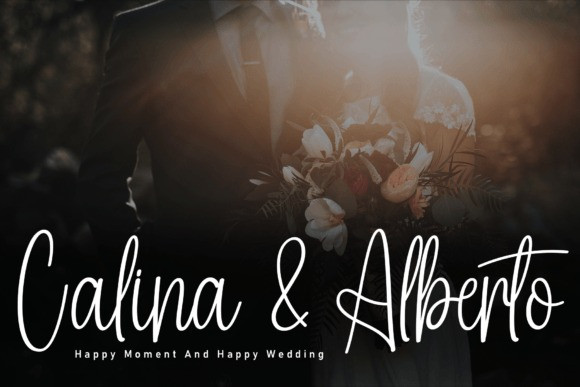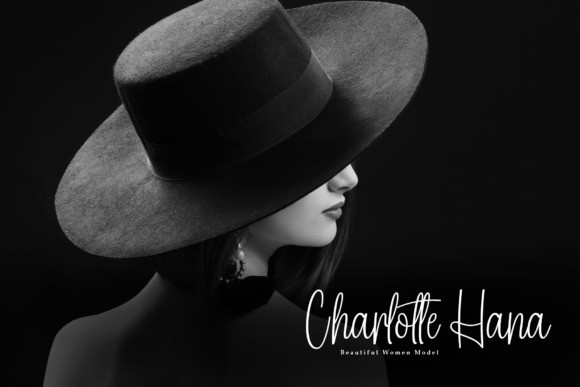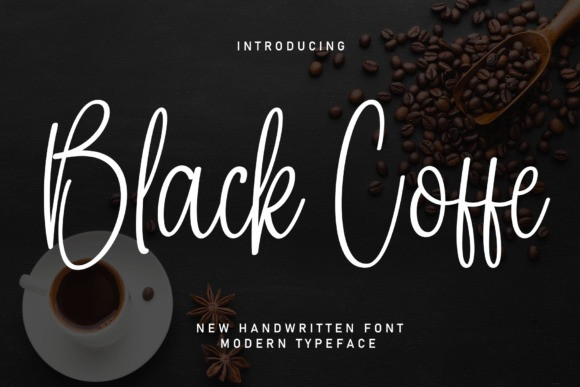
Black Coffe Font
Black Coffe Font a modern handwritten font that blends contemporary style with a touch of warmth. With sleek lines and a hint of handcrafted elegance, this font adds a trendy and personal feel to your projects. Perfect for a variety of applications, from stylish invitations to chic branding, BlackCoffe brings a modern twist to the classic charm of handwritten fonts. Elevate your designs with this versatile and on-trend typeface.